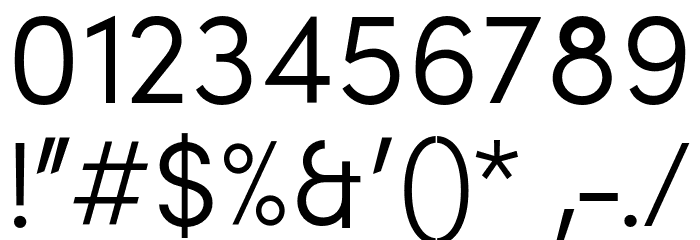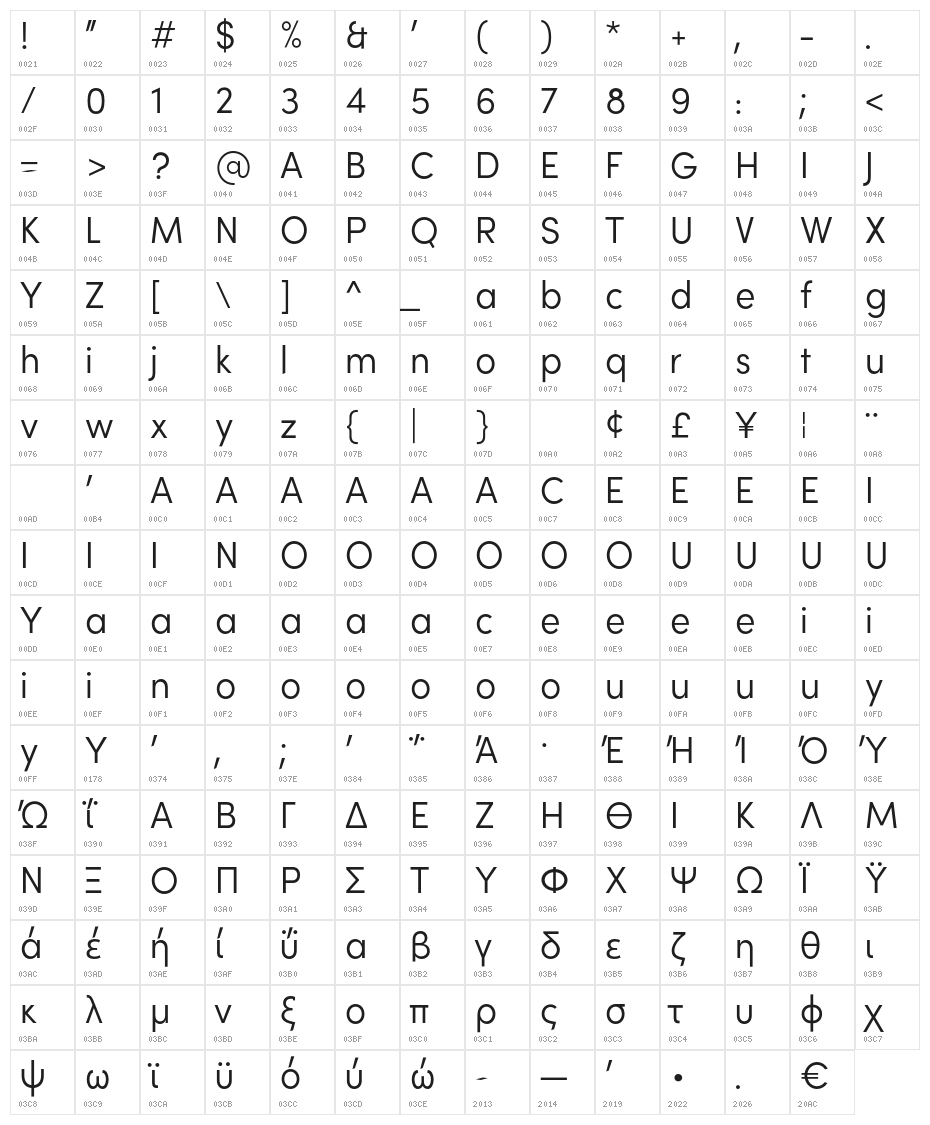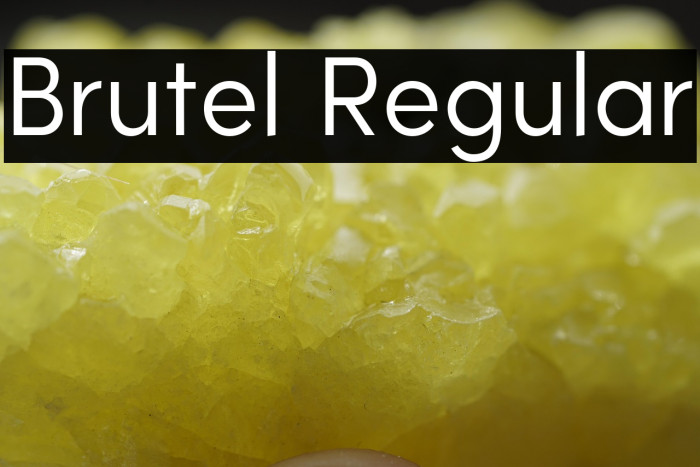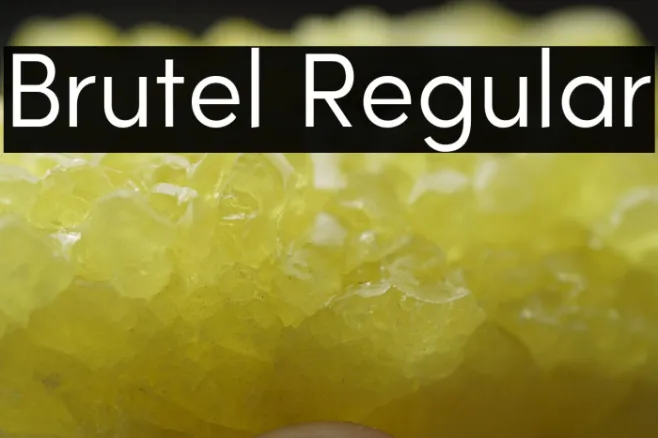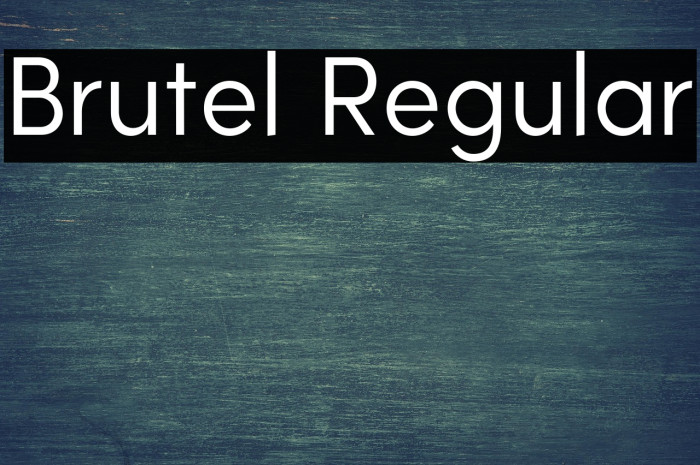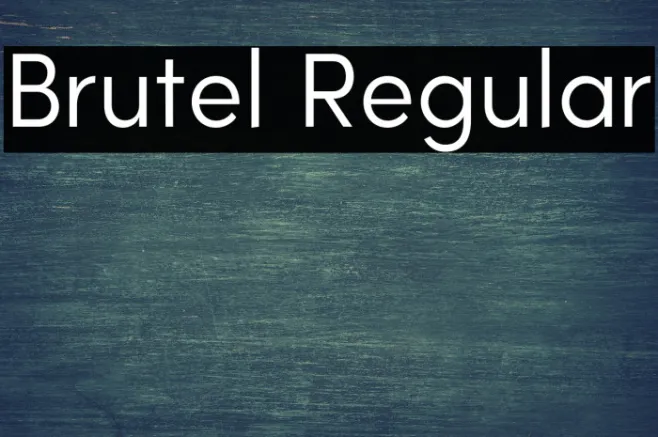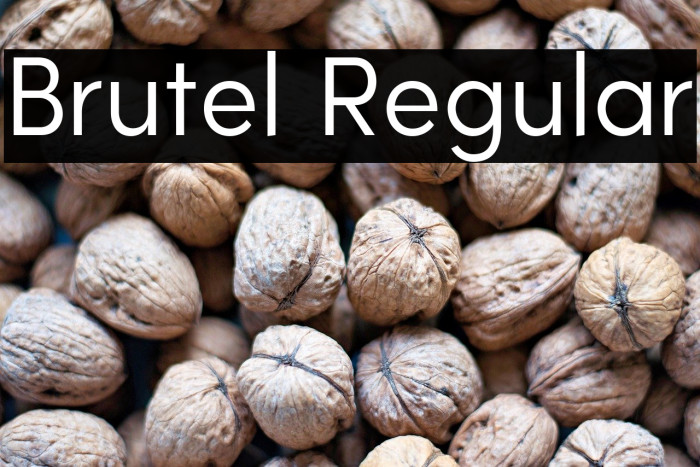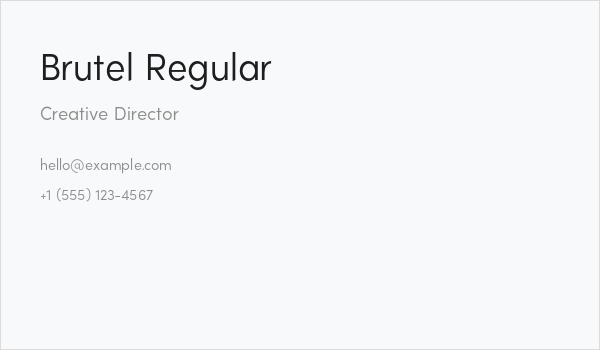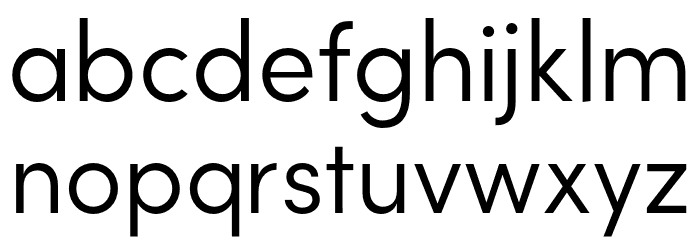
Brutel Regular Font
Brutel Regular Description
This typeface features a clean and modern sans-serif design, characterized by its geometric shapes and uniform stroke widths. The letters are well-balanced with a consistent height, providing a harmonious appearance. The uppercase and lowercase letters maintain a clear distinction, while the numerals are straightforward and easy to read. Special characters are designed with simplicity in mind, ensuring they blend seamlessly with the rest of the font. The overall aesthetic is minimalistic, making it versatile for various design applications.
| Proposed Projects | Ideal for branding, web design, advertising, and editorial layouts due to its clarity and modern appeal. |